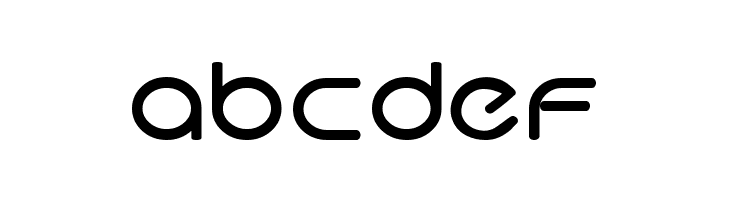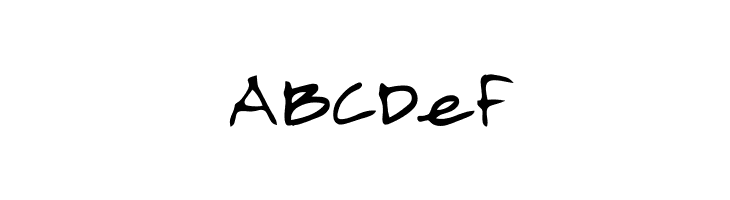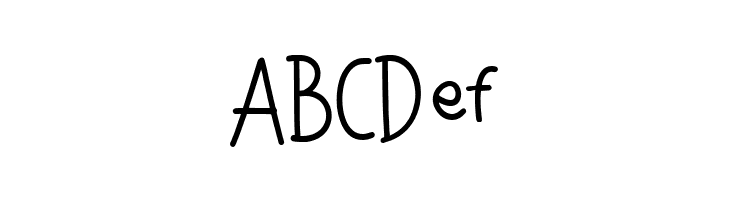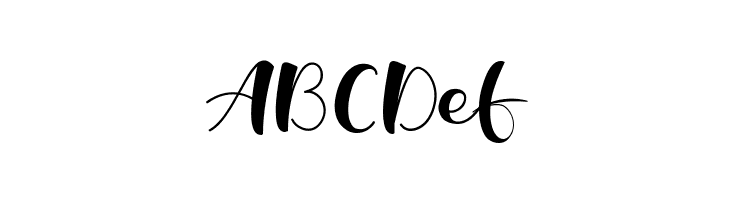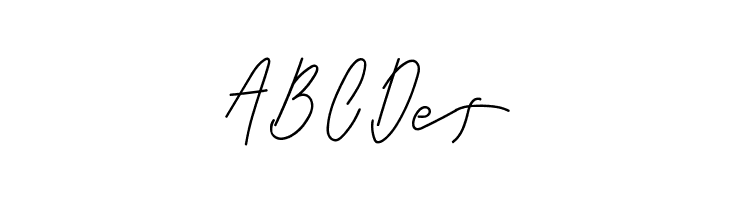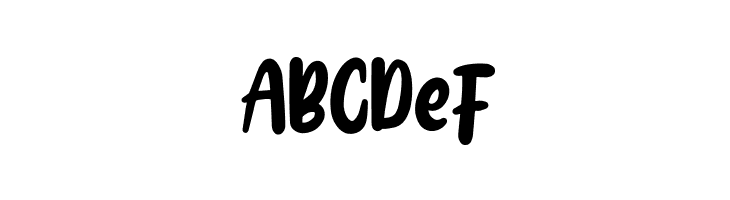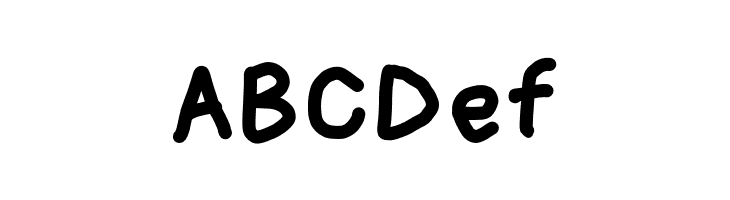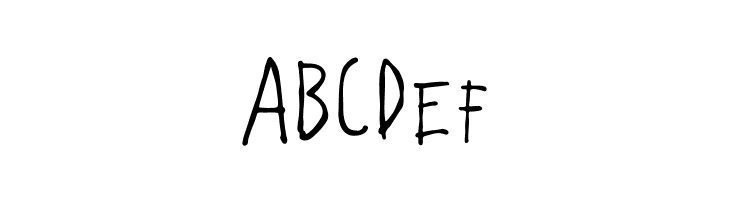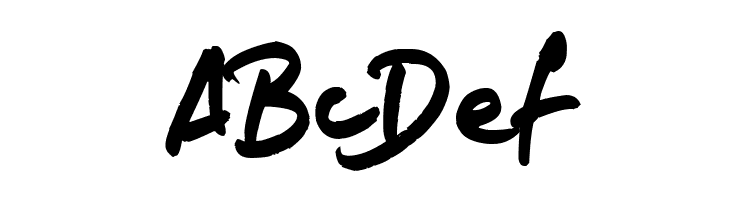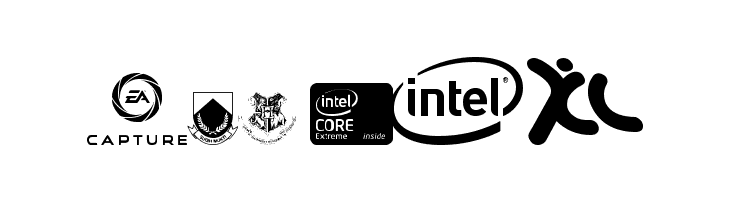
A bold, italic font with a dynamic and angular style.
A decorative display font mimicking popular brand logos.
A bold, playful handwritten font with a casual and friendly style.
A high-contrast, elegant font with a modern and sophisticated style.
An elegant and ornate script font with intricate swirls and flourishes.
A playful, handwritten-style font with fluid, organic strokes.
A graceful and fluid script font with a natural handwritten style.
A delicate, flowing script font with thin lines and graceful curves.
A playful, hand-drawn font with bold, rounded characters and a whimsical style.
A playful, handwritten font with bold, rounded strokes and an oblique style.
A playful, outlined font with a cartoonish, hand-drawn style.
A playful, outlined, and slightly oblique font with a hand-drawn feel.
A bold, angular font with a geometric, three-dimensional style.
A playful and elegant script font with a handwritten aesthetic.
An elegant, flowing script font with bold, cursive letterforms and decorative flourishes.
A bold, handwritten font with a dynamic and energetic style.
A bold, handwritten font with fluid, energetic strokes.
A fluid and elegant script font with italic styling.
A playful, handwritten font with smooth, rounded edges and a casual vibe.
A playful, textured handwritten font with a casual, informal style.